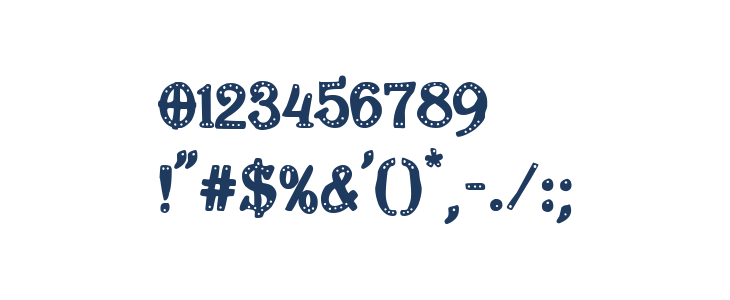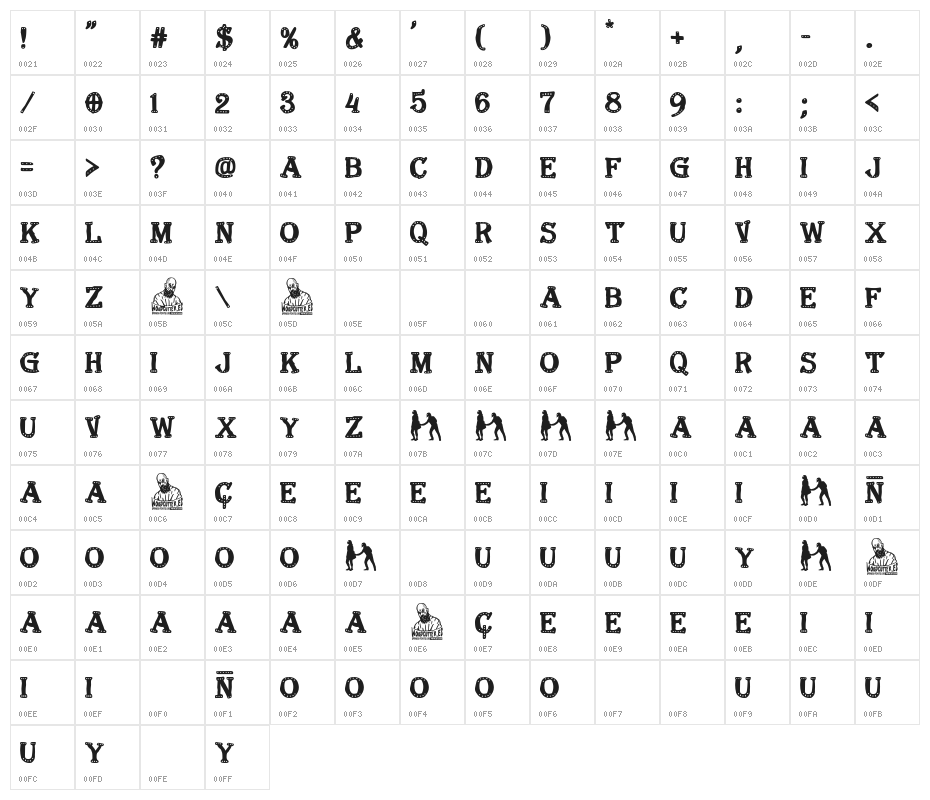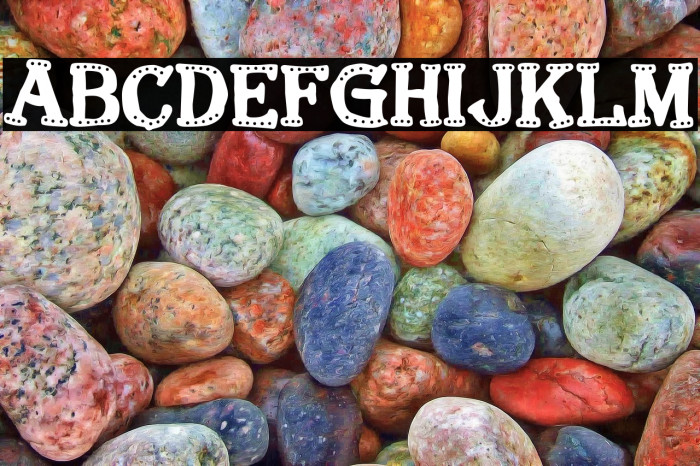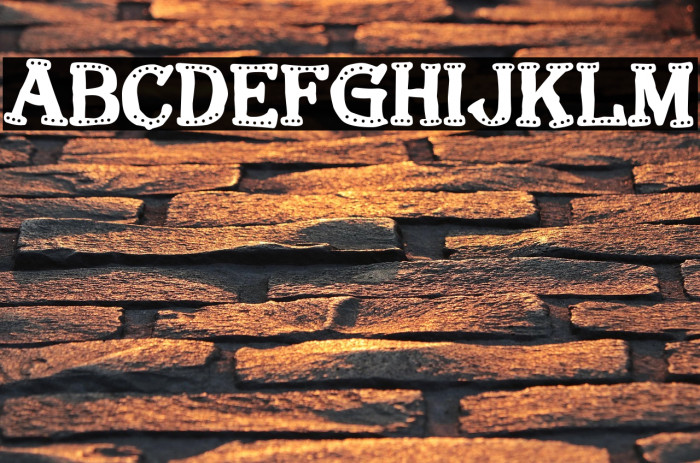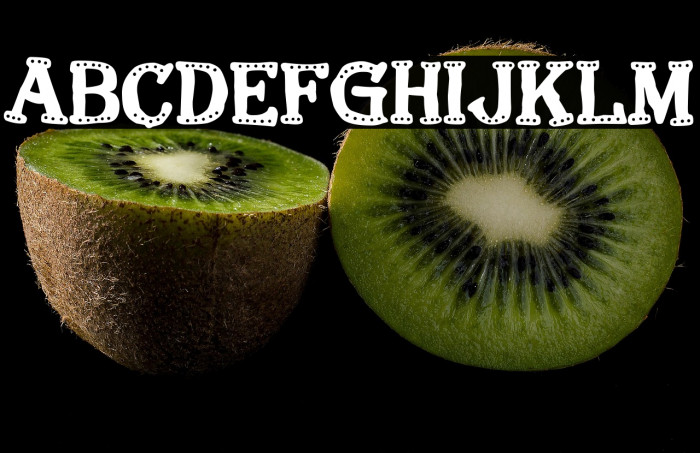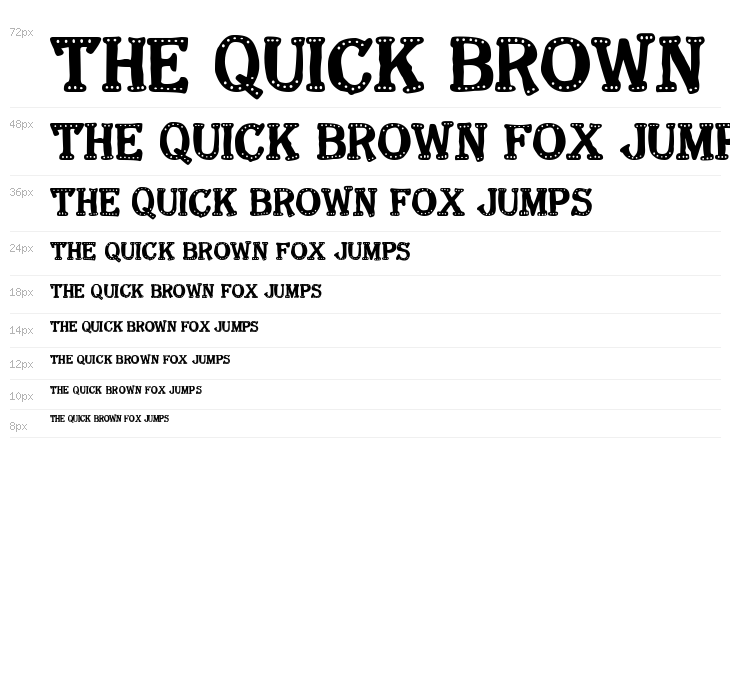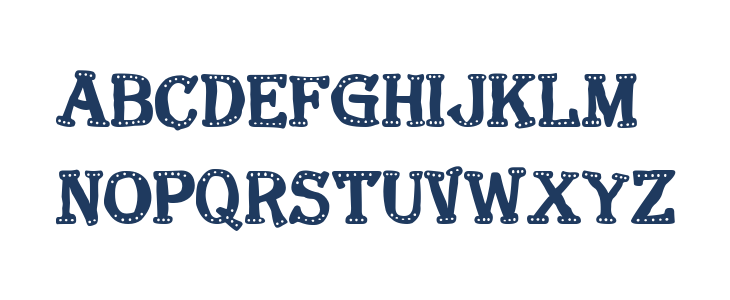
Pickpocket School Font
Pickpocket School Description
This font features a playful and decorative style, characterized by bold, rounded letterforms with a unique dotted pattern along the edges. The uppercase and lowercase letters maintain a consistent design, with a whimsical touch that adds a sense of fun and creativity. The numerals and special characters follow the same decorative theme, making the font cohesive and visually appealing. The bold strokes and dotted embellishments give it a distinctive look, suitable for projects that require a lively and engaging typeface.
| Proposed Projects | Ideal for children's books, playful branding, party invitations, and creative posters. |